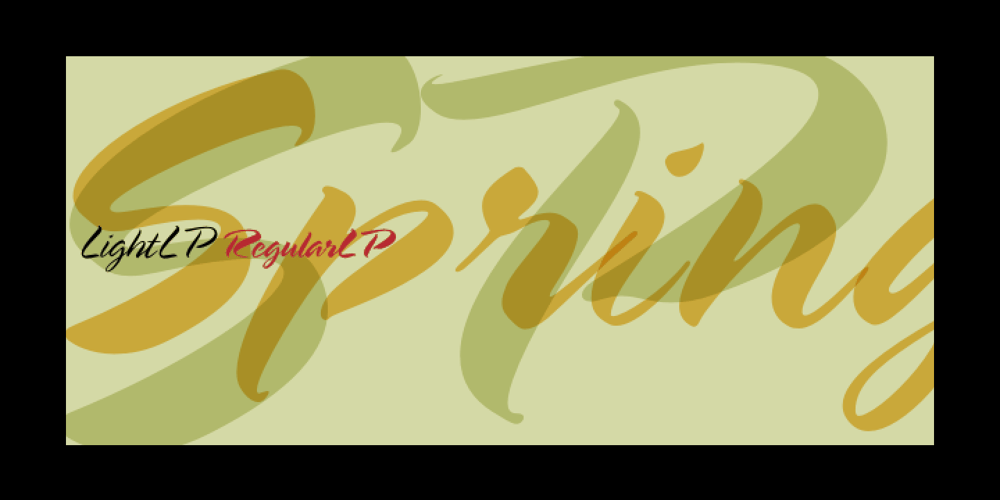
Spring LP Font Family was designed by Garrett Boge and published by LetterPerfect. Spring LP contains 2 styles and family package options. Spring is a lively contemporary script that designer Garrett Boge modeled after his own brush lettering. It was released in 1988 at the launch of LetterPerfect’s font collection, and has seen increasing use in advertising, packaging, and point-of-display promotions.